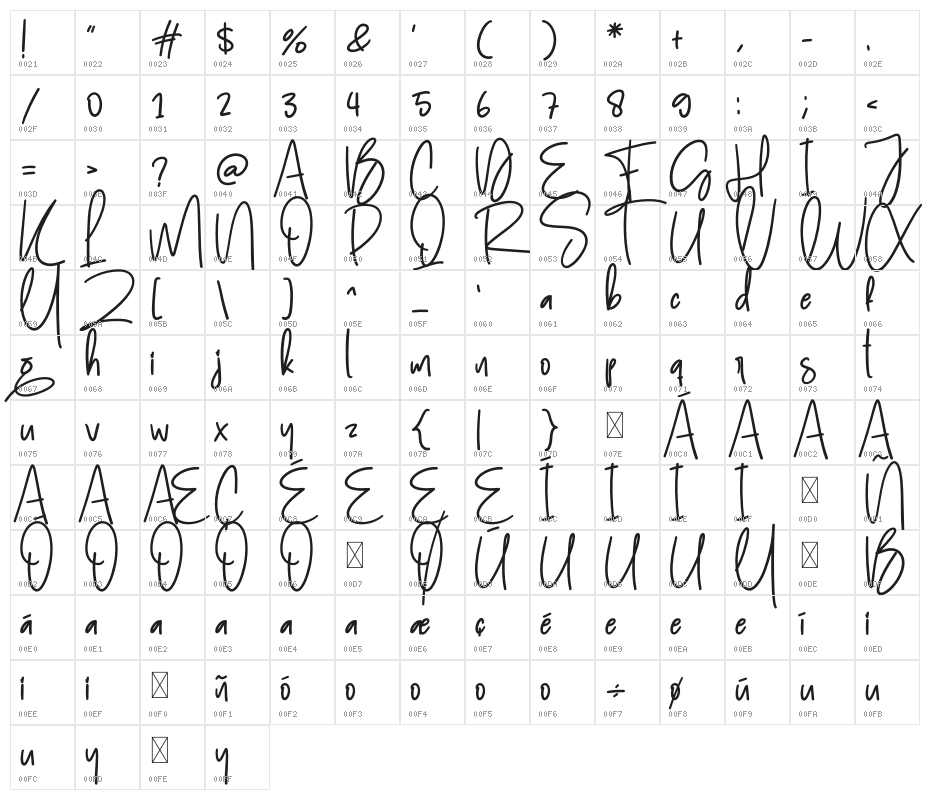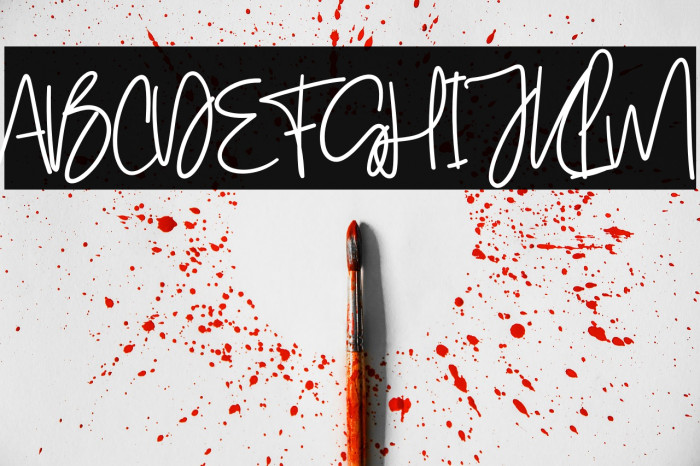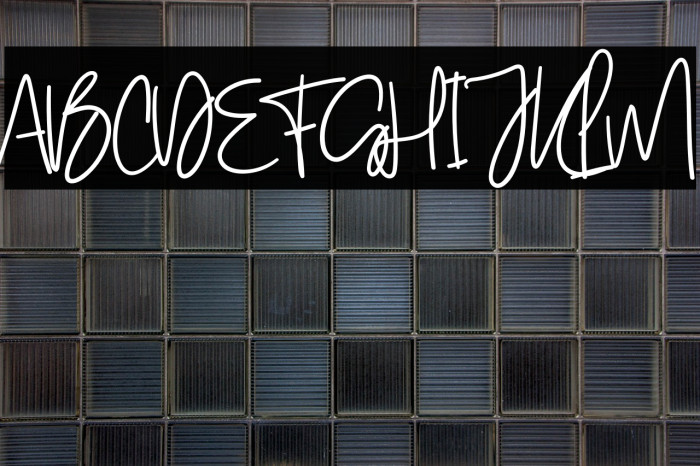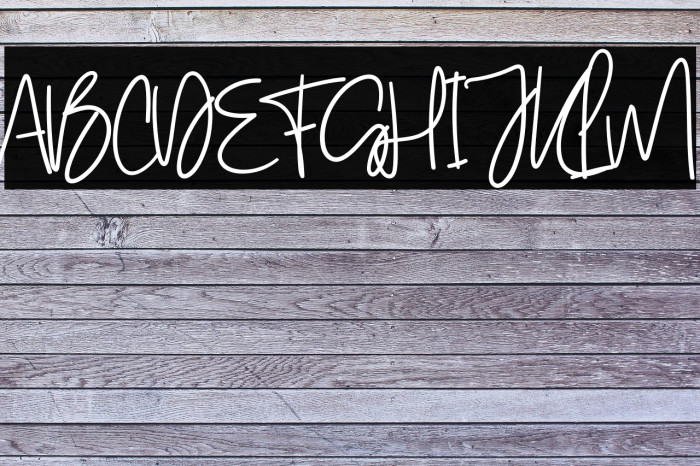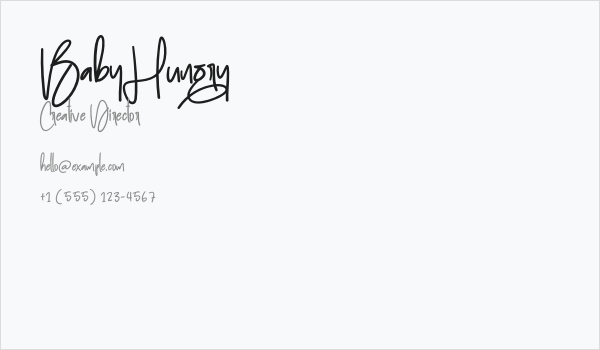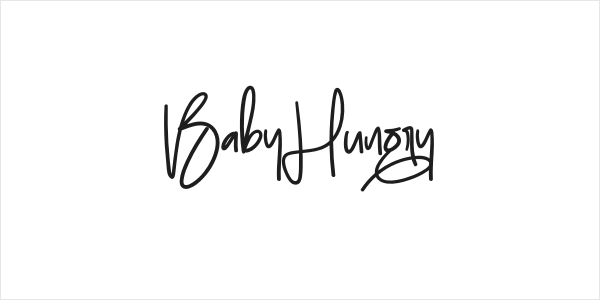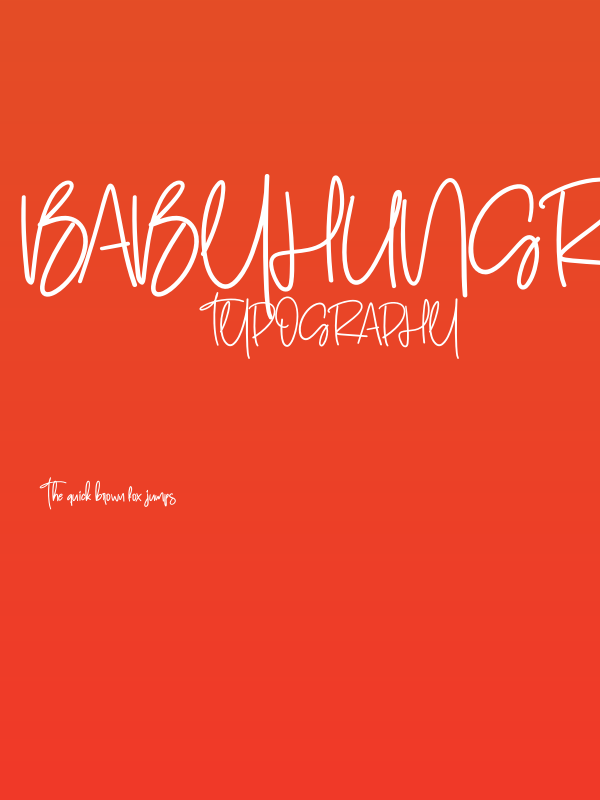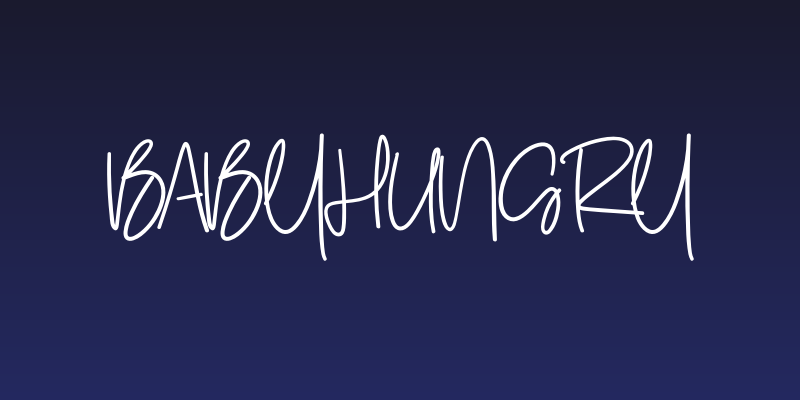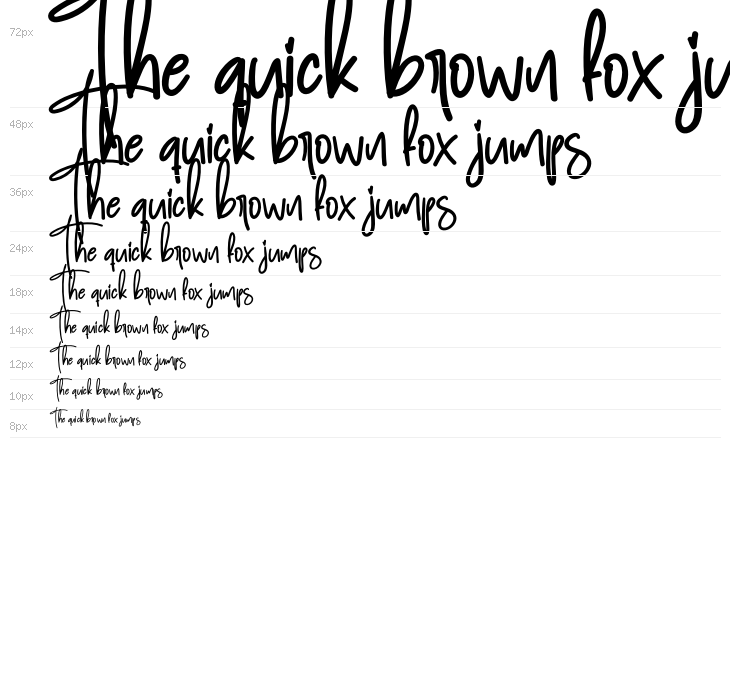
Baby Hungry Font
Baby Hungry Description
A playful, energetic handwritten font with tall, narrow letterforms and a casual, expressive style. The strokes vary in thickness, mimicking natural marker or pen writing, and the characters have a loose, informal feel.
| Overall Style | Playful, Casual, Expressive |
| Use Case | Headlines, Logos, Posters, Informal text |
| Proposed Projects | Greeting cards, children's books, posters, social media graphics, informal branding. |